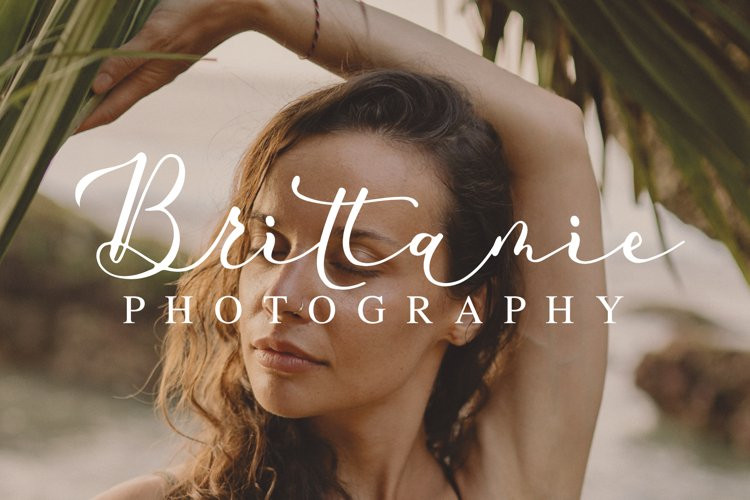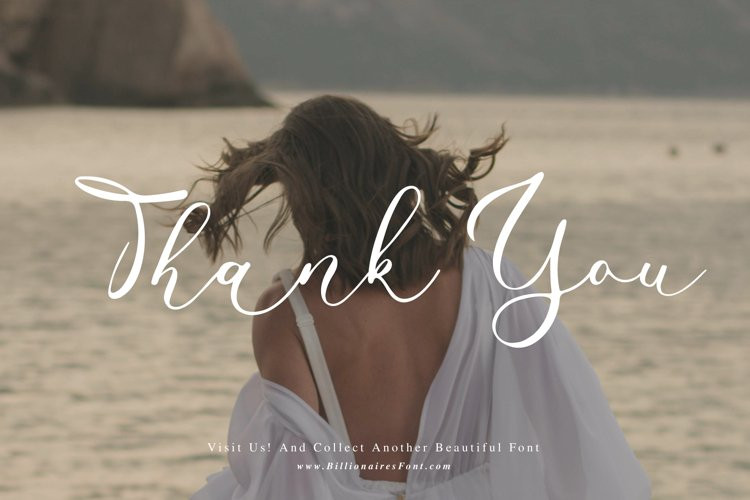
Archipelago Font
Archipelago International // Christmas Script Font is a stylish script font that features a varying baseline, smooth line, modern, and depth of love. For those of you who need a touch of love and modernity for your designs or branding, it can be used for various purposes such as headings, weddings, invitations, signatures, logos, branding, t-shirt, letterhead, signage, labels, news, posters, badges, etc.